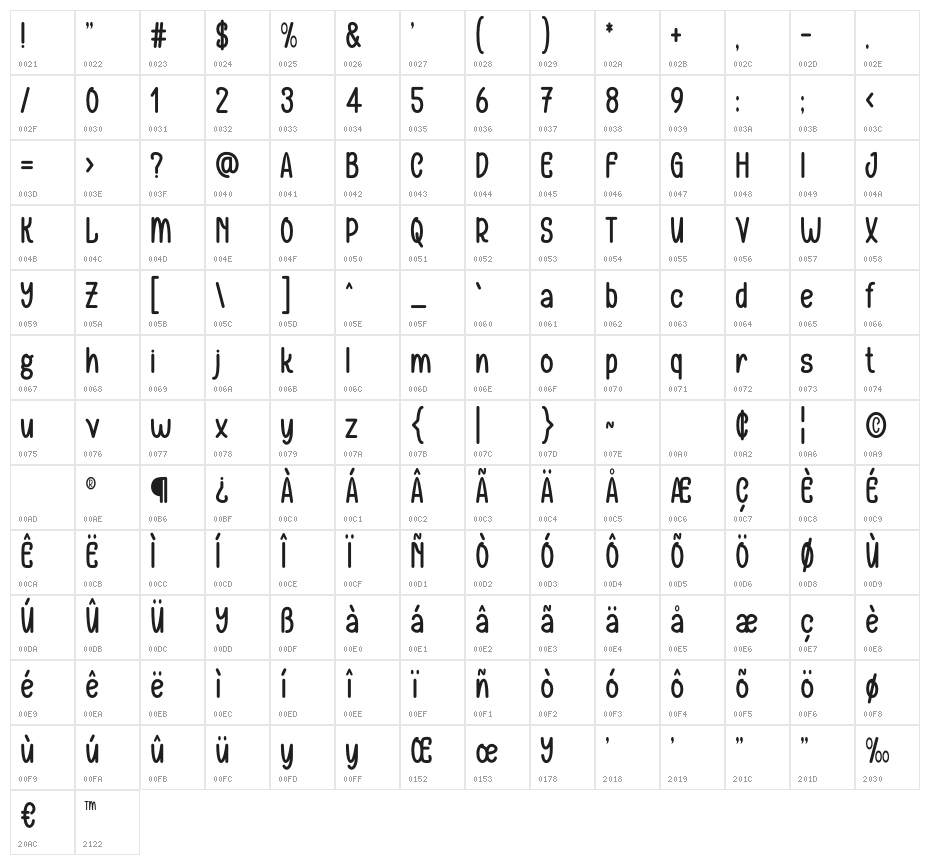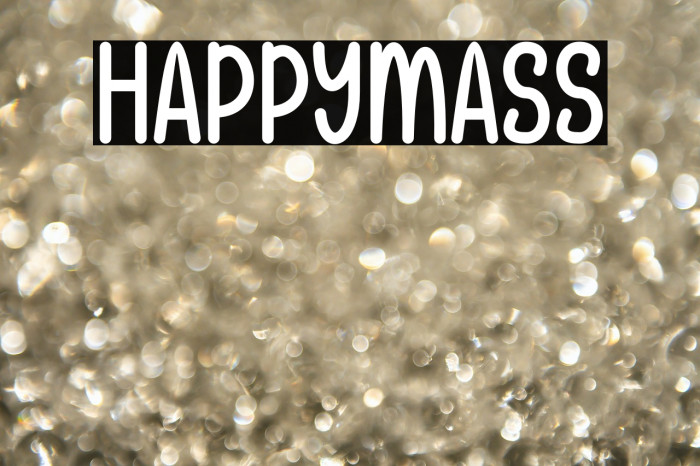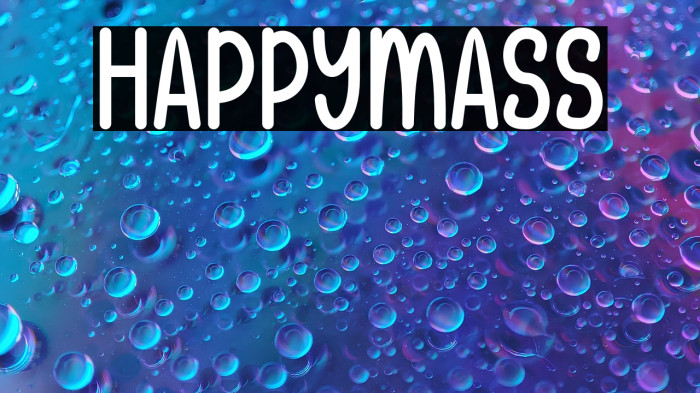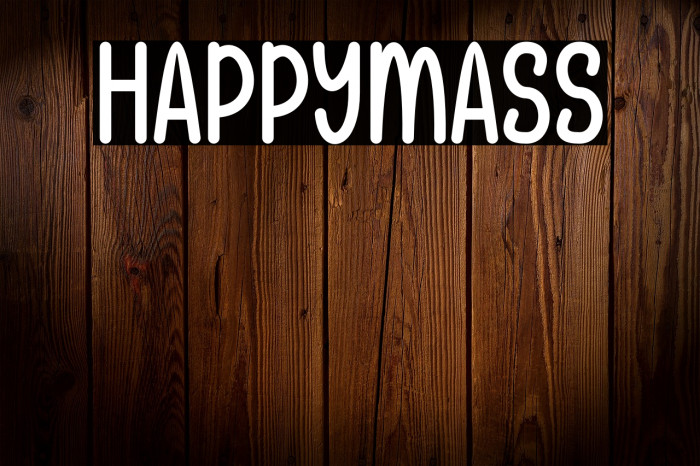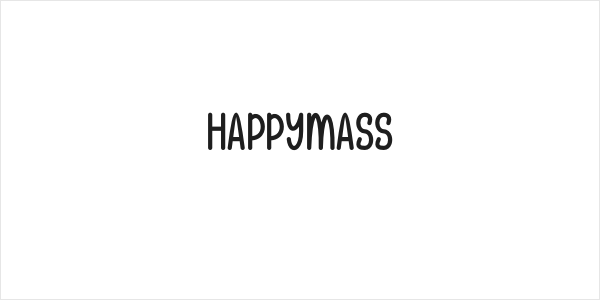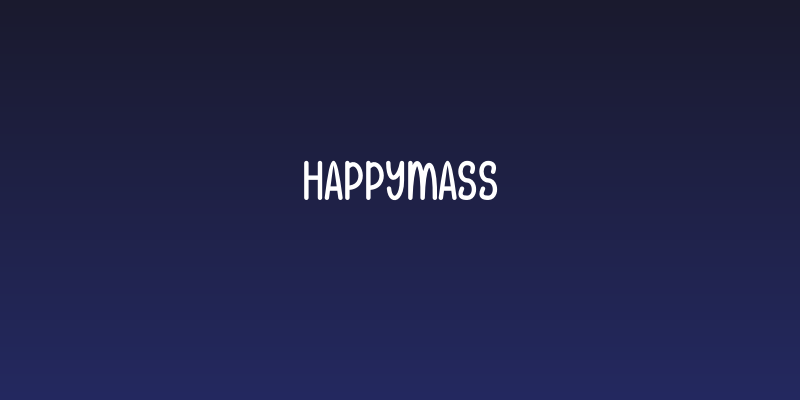
HAPPYMASS Font
HAPPYMASS Description
This playful and whimsical font features rounded, bold characters with a friendly and approachable style. The letters are evenly spaced, with a consistent stroke width that gives it a clean and cohesive appearance. The font's design is reminiscent of handwritten text, yet maintains a structured and uniform look. Its playful nature makes it ideal for projects that require a fun and lighthearted touch. The characters are easy to read, making it suitable for both headlines and short body text. The inclusion of numbers and special characters ensures versatility in various design applications.
| Use Case | Headlines, Short body text, Branding |
| Proposed Projects | Ideal for children's books, greeting cards, playful branding, and casual event invitations. |